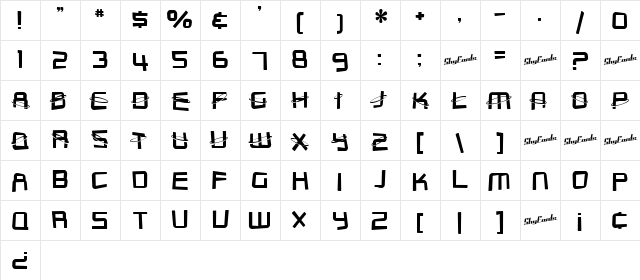
SF Outer Limits DistUpright Regular Free Font
SF Outer Limits DistUpright Regular
SF Outer Limits DistUpright Family
Complete SF Outer Limits DistUpright Regular glyph index. Displaying only characters natively supported by SF Outer Limits DistUpright Regular font.
Design Context for SF Outer Limits DistUpright
SF Outer Limits DistUpright is a composed and adaptable typeface that performs quietly and consistently across a wide range of design contexts.